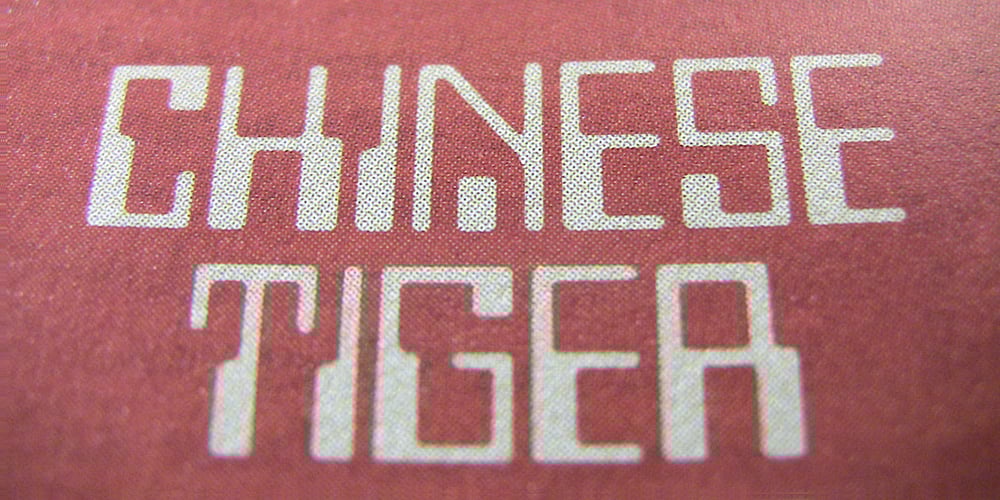
Time Machine Font Family was designed by Lloyd Springer and published by TypeArt Foundry. Time Machine contains 4 styles and family package options. Time Machine is type design that simulates old computer lettering in an era before modern bar codes.. In the PC version of this font family the style names are slightly different from those used in the Mac versions. But the fonts are otherwise identical.